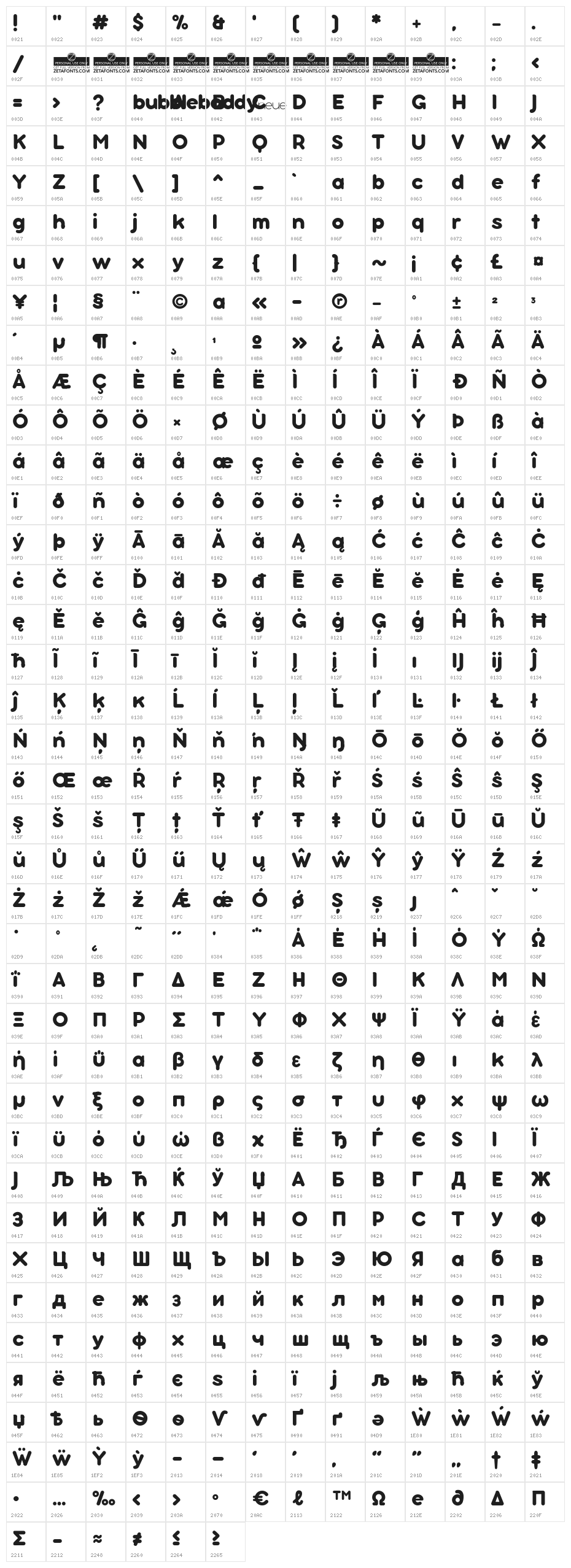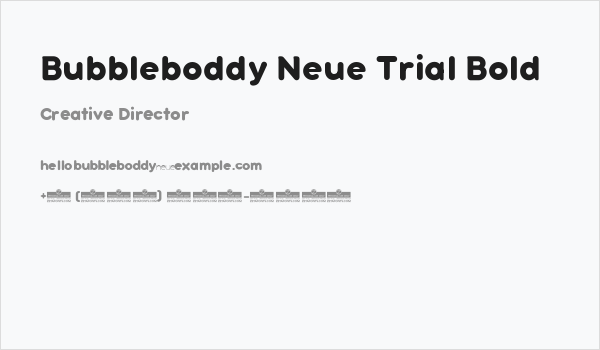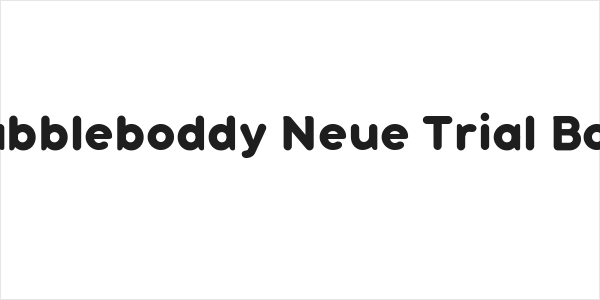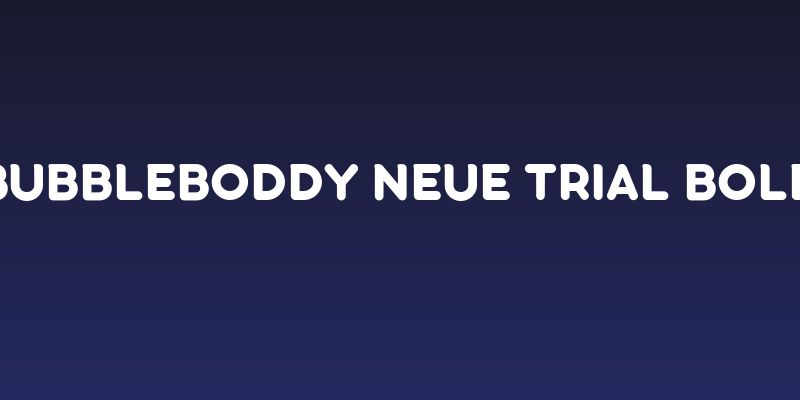
Bubbleboddy Neue Trial Bold Font
Bubbleboddy Neue Trial Bold Description
This font features a playful and rounded design, characterized by its bold and bubbly appearance. The letters have a uniform thickness, giving them a friendly and approachable look. The rounded edges and smooth curves create a sense of warmth and softness, making it ideal for casual and fun projects. The characters are evenly spaced, ensuring readability while maintaining a cohesive visual flow. This font is perfect for projects that require a touch of whimsy and charm, such as children's books, playful branding, or creative posters.
| Overall Style | Playful, Whimsical |
| Proposed Projects | Ideal for children's books, playful branding, creative posters, and fun invitations. |